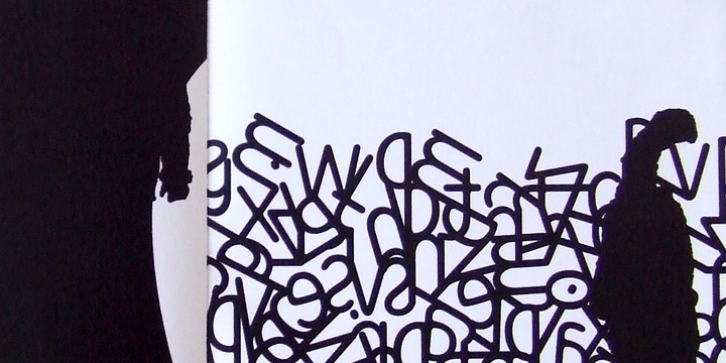
Prahaha ‘Me and other Animals in Prague’ is a monolinear display that comes in 3 styles. The face is inspired by the animal drawings I made in Prague.